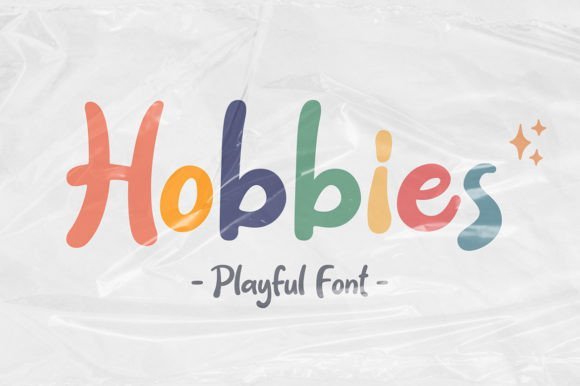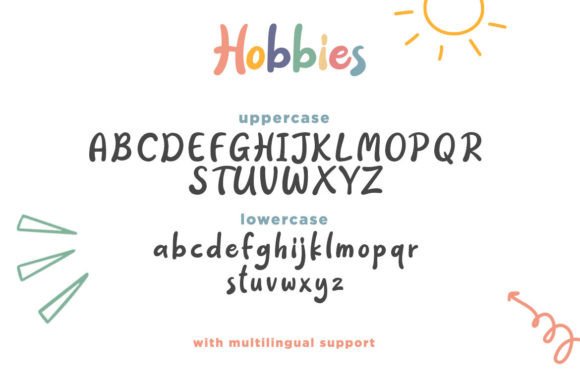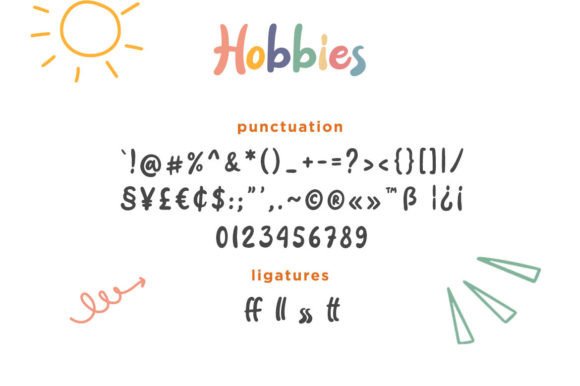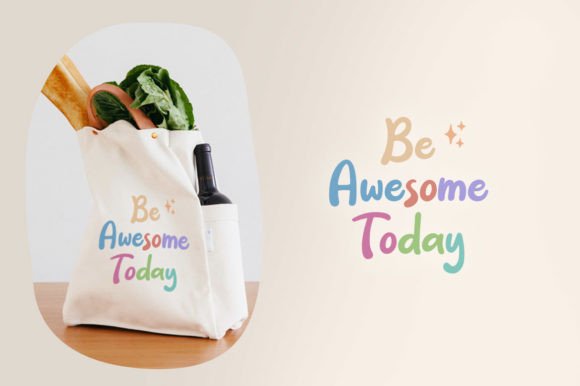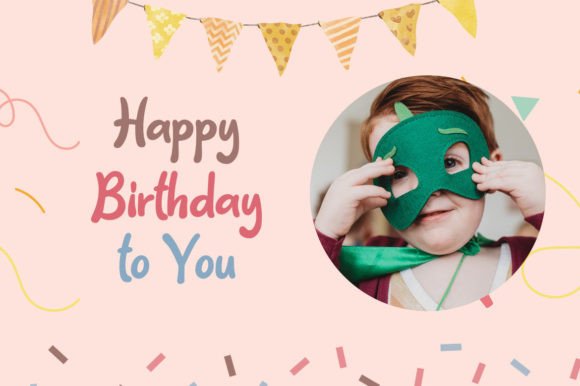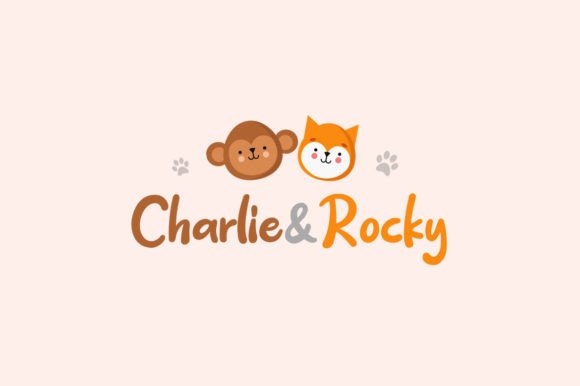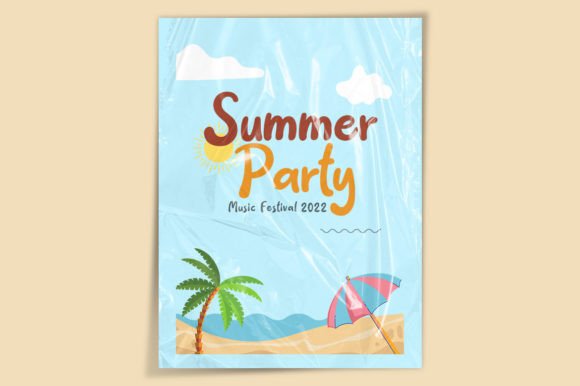
Unleashing the Kid Within: The Joy of Hobbies Font
Who among us hasn’t experienced that moment of pure creative bliss, when a spark of inspiration strikes and we know exactly what we want to create? Maybe it’s a children’s book, a toy design, or a whimsical greeting card – whatever it is, we know it needs to be special. That’s where Hobbies Font comes in, a playful and childish display font designed to bring a touch of fun and whimsy to any project.
With its bold and bubbly letters, Hobbies Font is perfect for designers looking to add a dash of joy and playfulness to their work. Whether you’re creating a kids’ magazine, a toy packaging design, or a festive party invitation, this font is sure to bring out the kid in everyone. By incorporating Hobbies Font into your projects, you’ll not only add visual interest but also a sense of nostalgia and wonder.
- Font Family: Hobbies Font is a unique, hand-drawn font designed for creative projects.
- Unique Characteristics: Features a playful, cursive design with various line styles and flourishes, adding a touch of personality to any project.
- Character Count: Includes a wide range of characters, including uppercase and lowercase letters, numbers, and punctuation marks.
Hobbies Font Review
Hobbies Font is a versatile font that can be used for various design projects. ✨ One of its standout features is its uniqueness – it’s not a common font, which can be a great asset for designers looking to add some personality to their work. The font also has a wide range of weights, from light to bold, which makes it suitable for a variety of applications.
However, there are a few limitations to consider. ⚠️ For one, the font may not be ideal for large blocks of text, as it can be a bit difficult to read. Additionally, the font’s aesthetic may not be to everyone’s taste, and some users may find it too playful or whimsical. The font also has some quirks in terms of character spacing, which can be noticeable in certain contexts.
Overall, I would say that Hobbies Font is a solid choice for designers who want to add some flair to their work. While it may not be perfect, its unique features and wide range of weights make it a valuable addition to any designer’s toolkit.
- ✨ Unique aesthetic and wide range of weights
- ✨ Suitable for various design projects, from logos to digital displays
- ⚠️ Not ideal for large blocks of text
- ⚠️ May not be to everyone’s taste
- ⚠️ Quirks in character spacing in certain contexts
Getting the Most Out of Hobbies Font
To get the most out of Hobbies Font, use it to create visually appealing headings and titles. Pair it with bold or italic text to add emphasis. Use it in creative projects like posters, flyers, and brochures.
Hobbies Font is perfect for creative projects like:
- Posters and flyers
- Brochures and catalogs
- Infographics and charts
- Business cards and invitations
Alternatives to Hobbies Font
Great Vibes Font is a modern, elegant script font designed to evoke a sense of sophistication and refinement. It’s ideal for use in high-end branding, luxury products, and creative projects that require a touch of elegance.
Compared to Hobbies Font, Great Vibes Font has a more refined and polished look, making it suitable for a wider range of applications. While Hobbies Font has a more playful and casual feel, Great Vibes Font is more suited for formal or professional settings.
Pacifico Font is a beautiful, modern script font with a relaxed and casual feel. It’s perfect for use in beach-themed branding, outdoor apparel, and creative projects that require a laid-back vibe.